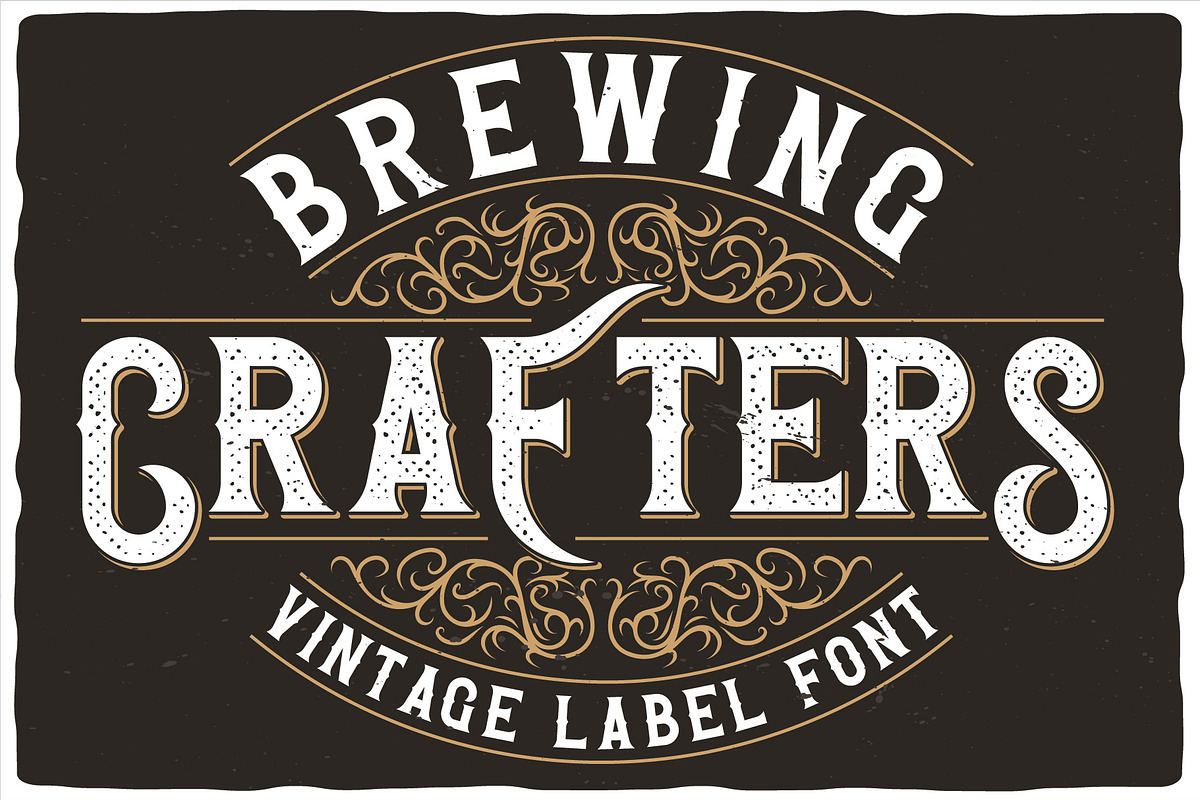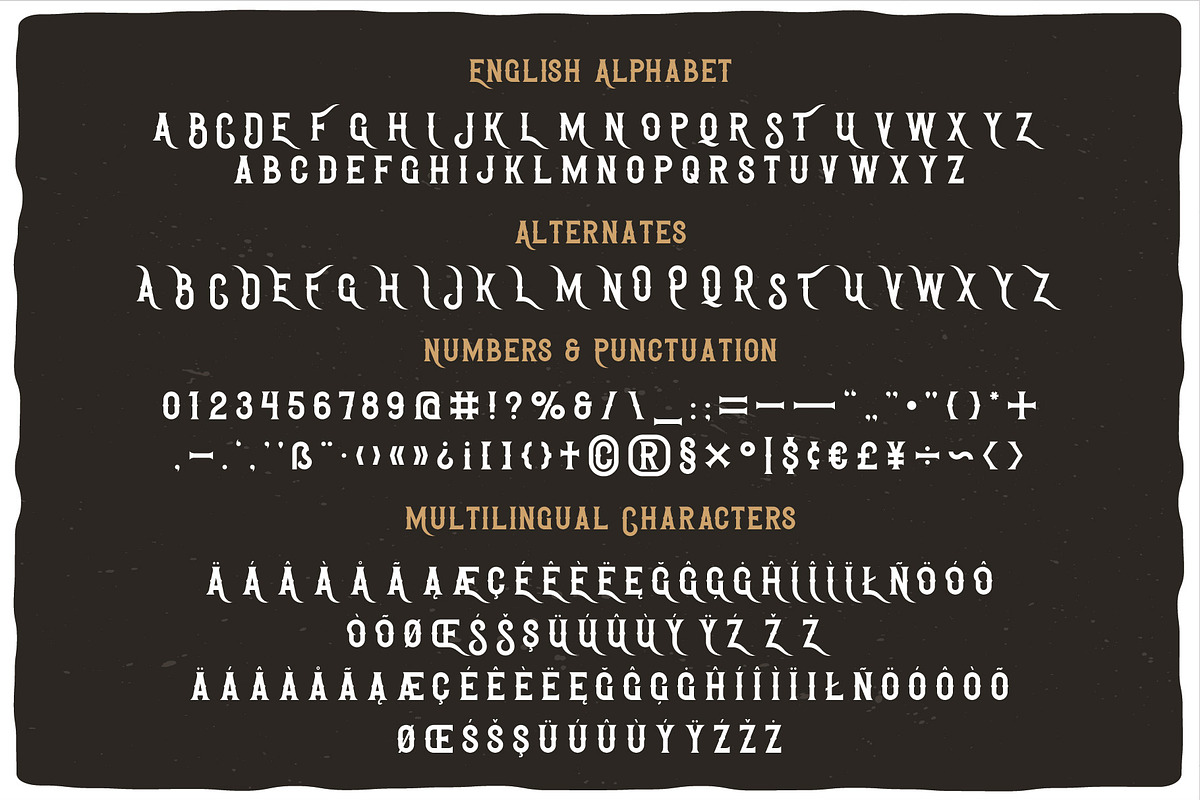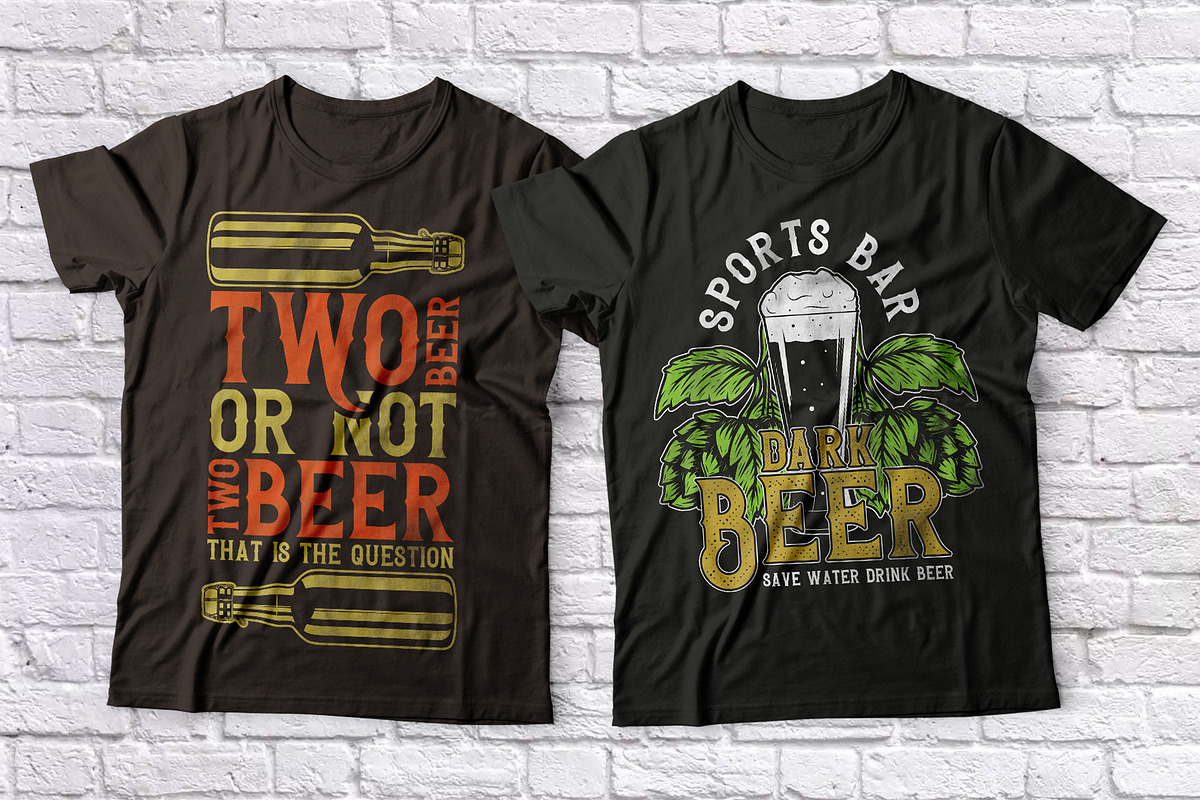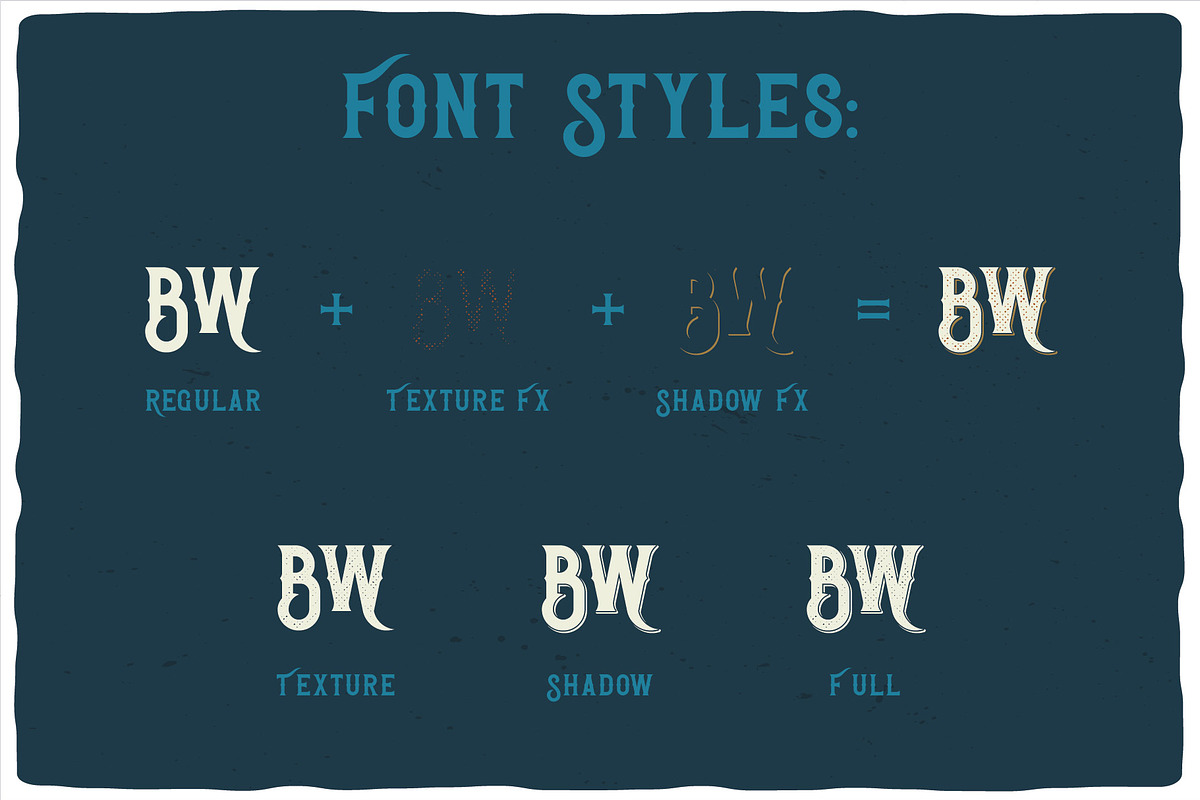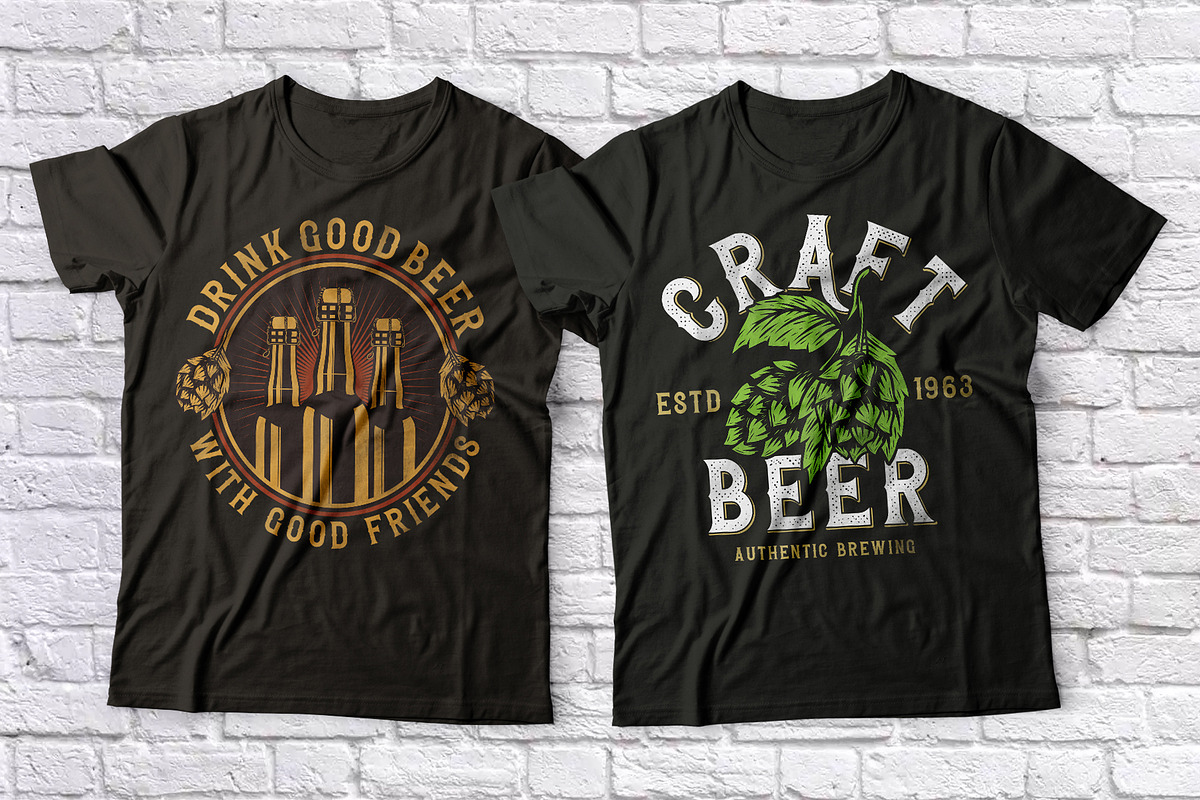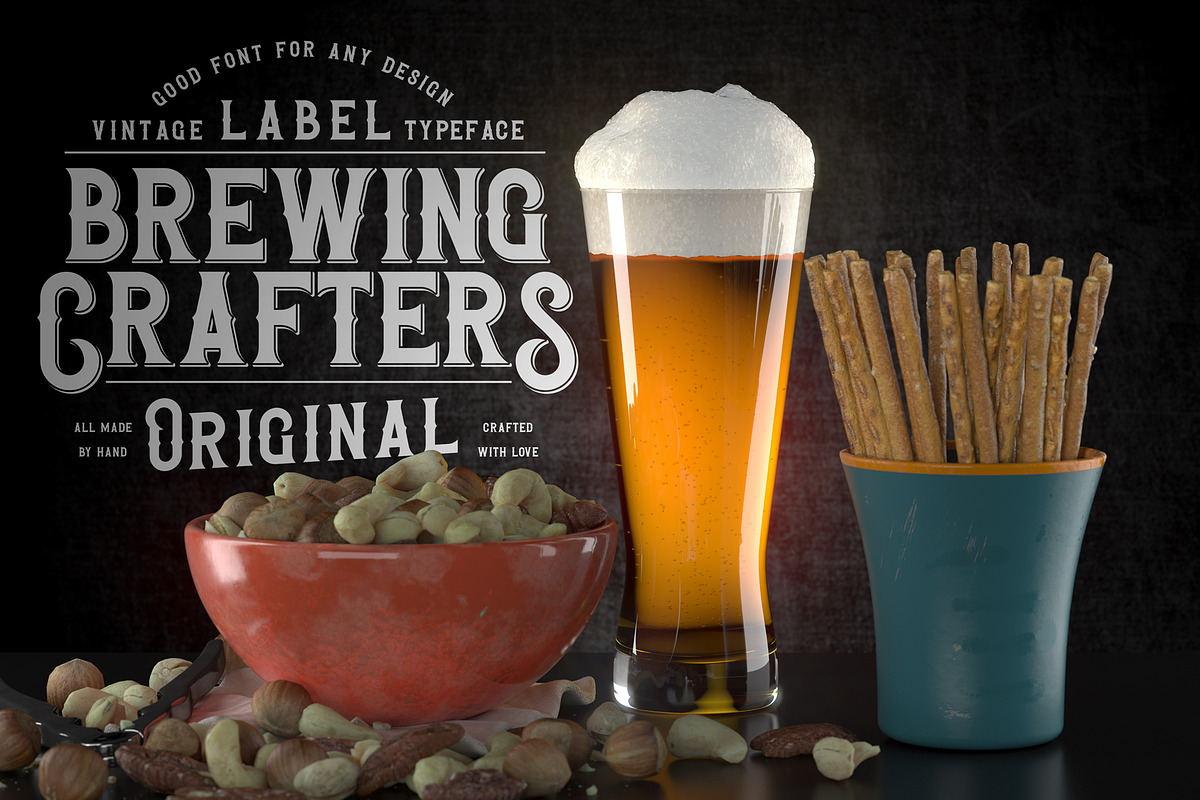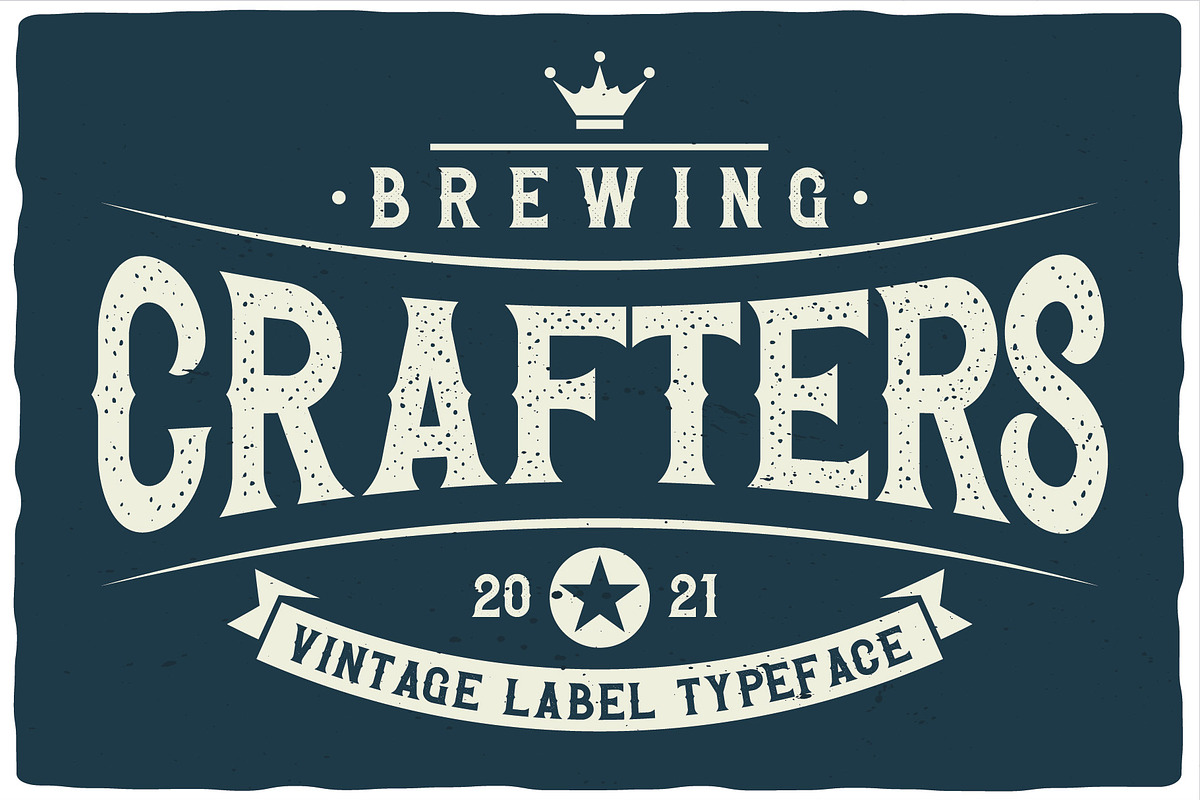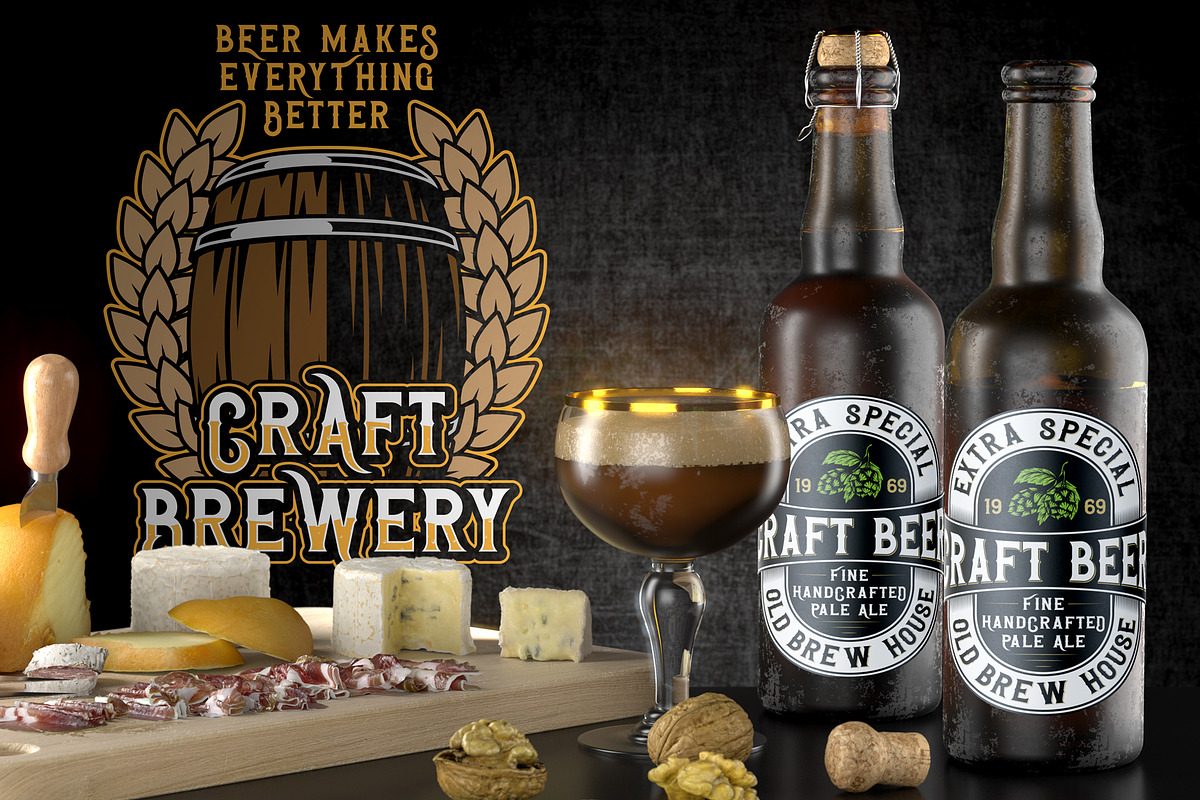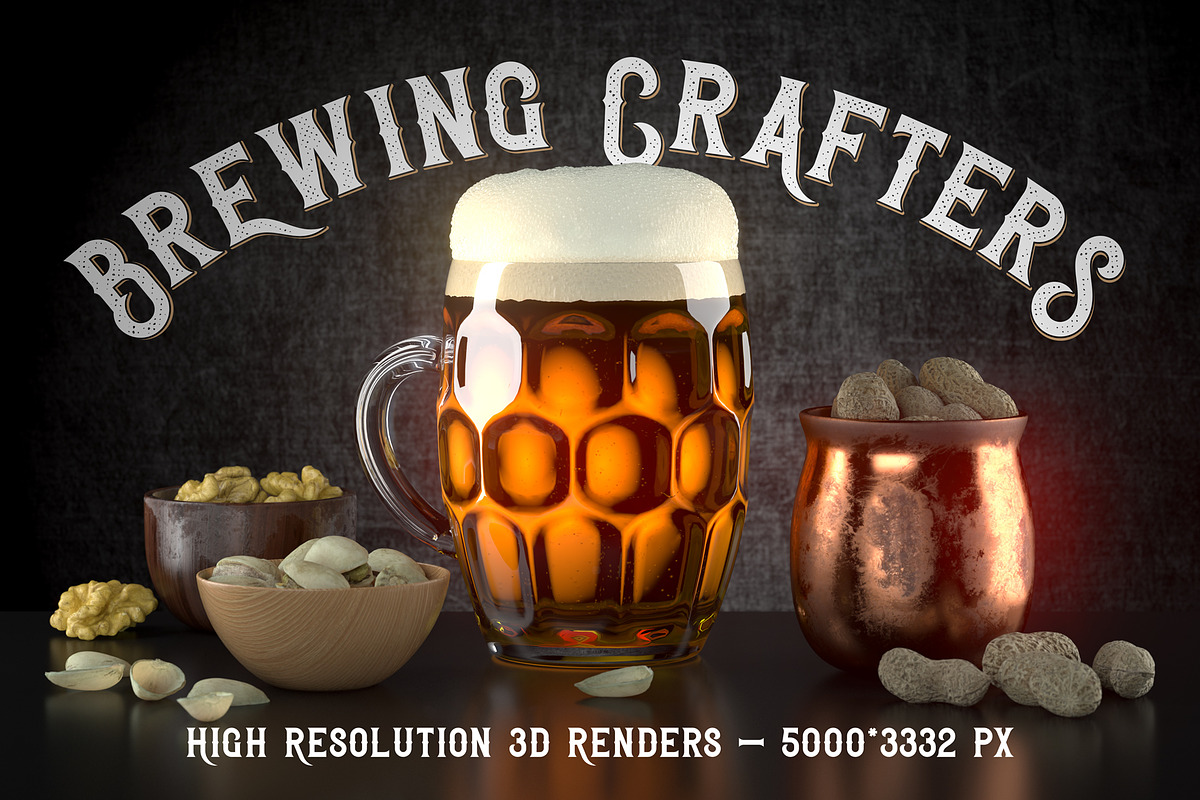
Brewing Crafters
Introducing a vintage look label font named Brewing Crafters. All available characters you can see at the screenshot. This font have 6 styles - Regular, Full, Shadow, Texture, Shadow FX and Texture FX. This font will good viewed on any retro design like poster, t-shirt, label, logo etc.
- A lot of additional characters and multilingual support + alternates for capital letters